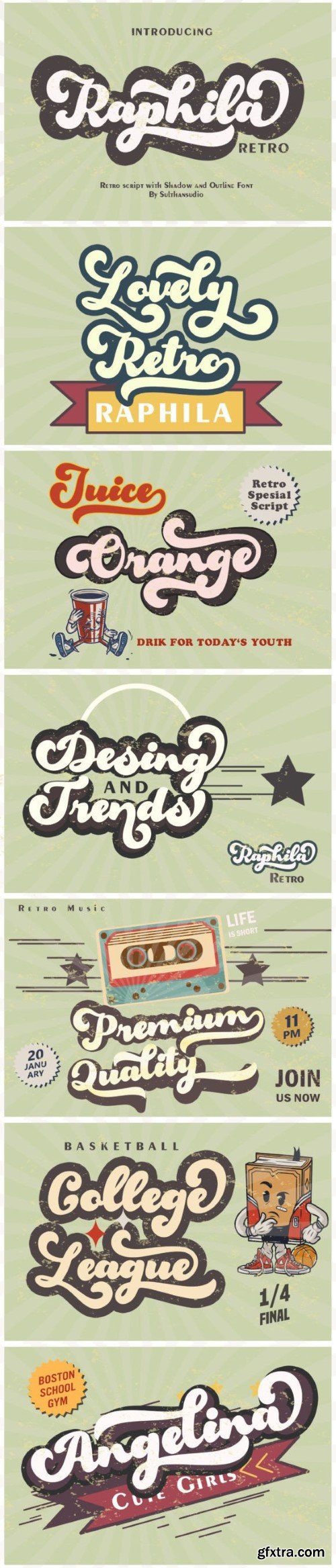
raphila retro 字体
Raphila retro is a Vintage retro font inspired by retro typography and letters of the 70s and 80s combined with a bold typographic style, Raphila retro has three styles in it, namely regular, outline and shadow plus swashes, as well as alternative upper and lower case letters and several binders adding lots of options for the cool work you are doing. This font is perfect for vintage and retro designs, badges, logos, t-shirts, posters, branding, packaging, signs, book covers and more! This font is PUA coded, which means you can access all the glyphs and swashes easily!